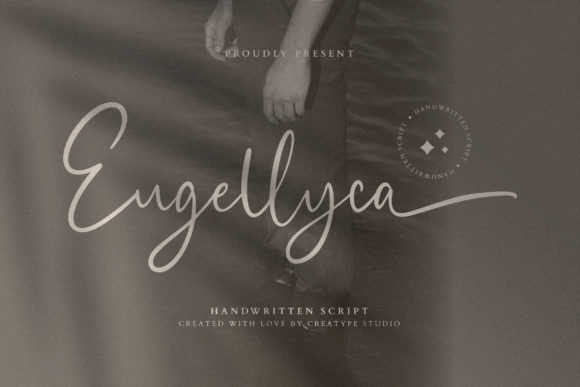
Behold the Eugellyca Script Font, a typographic masterpiece that exudes sophistication and elegance. This chic script font, crafted by the creative maestros at CreatypeStudio, is a symphony of style and grace, designed to elevate your designs to new heights.
With its sweeping strokes, playful alternates, and enchanting ligatures, Eugellyca Script captivates the eye and ignites the imagination. Each letter dances across the page, forming words that whisper secrets and ignite passions. Whether you seek to create stunning quotes, captivating logos, or enchanting invitations, Eugellyca Script is your perfect companion.
Effortlessly versatile, Eugellyca Script seamlessly adapts to a myriad of projects, from heartfelt wedding invitations to striking social media posts. Its inherent charm adds a touch of magic to every creation, leaving an indelible mark on the hearts of your audience.
Unleash the power of Eugellyca Script and witness the transformation of your designs. Its captivating beauty will make your words come alive, leaving a lasting impression that lingers long after the page is turned. Let your creativity soar and experience the joy of creating masterpieces that speak volumes.
Engulf yourself in the world of Eugellyca Script, a font that embodies the essence of elegance and sophistication. Its timeless appeal and effortless charm will elevate your designs to new heights, captivating your audience and leaving them spellbound. Embrace the magic of Eugellyca Script and unlock the limitless possibilities of your imagination.